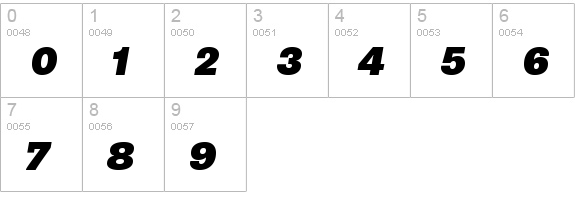
Supria Sans Black Oblique Font Details
Supria Sans Black Oblique is a maximum-weight, dramatic, italic variant in the Supria typeface family \xE2\x80\x94 well suited to maximum-impact headlines, posters, and packaging.
Supria Sans Black Oblique font is a modern and stylish typeface that exudes elegance and sophistication. Its bold and slanted design adds a dynamic touch to any design project, making it perfect for headlines, titles, and branding materials. The sharp angles and sleek curves of this font create a strong visual impact, grabbing the attention of the audience. What makes Supria Sans Black Oblique font even more appealing is that it is available for free download at FontsMarket.com. Whether you're a professional designer looking to add a touch of flair to your work or a casual user in need of a striking font for personal projects, this typeface is a versatile choice that will elevate your designs to the next level. Don't miss out on the opportunity to enhance your projects with the bold and impactful Supria Sans Black Oblique font, now freely available for download.